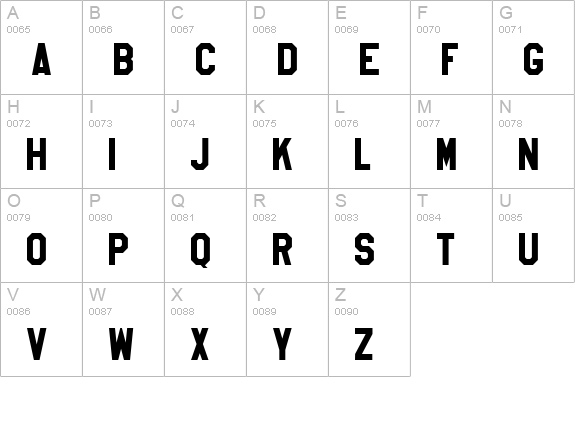
High School USA Sans Font Details
High School USA Sans font is a modern and versatile typeface that captures the youthful spirit of high school. With its clean and legible design, this font is perfect for a wide range of projects, from school presentations to posters and advertisements. The High School USA Sans font embodies the energy and vibrancy of the high school experience. Its sleek lines and rounded edges give it a contemporary feel, while its bold and confident letterforms make a statement. Whether you're designing a flyer for a school event or creating a logo for a student club, this font will help you capture the essence of high school life. One of the best things about High School USA Sans font is that it is completely free. You can easily download it from FontsMarket.com, a reliable and trustworthy source for high-quality fonts. This means that you can use this font without any restrictions, whether you're a student, teacher, or designer. With its wide range of weights and styles, High School USA Sans font offers endless possibilities for creativity. From light and airy to bold and impactful, you can easily find the perfect variation to suit your needs. Whether you're designing a yearbook cover or creating social media graphics for your school, this font will provide the versatility you need to make your designs shine. In addition to its aesthetic appeal, High School USA Sans font is also highly legible, making it perfect for educational materials. Its clear and well-defined letterforms ensure that your messages are easily understood, whether they're displayed on a classroom projector or printed in a textbook. Overall, High School USA Sans font is a must-have for anyone looking to capture the youthful energy and spirit of high school. And the best part? It's completely free! So why wait? Head over to FontsMarket.com and download this amazing font today to add a touch of high school flair to your designs.